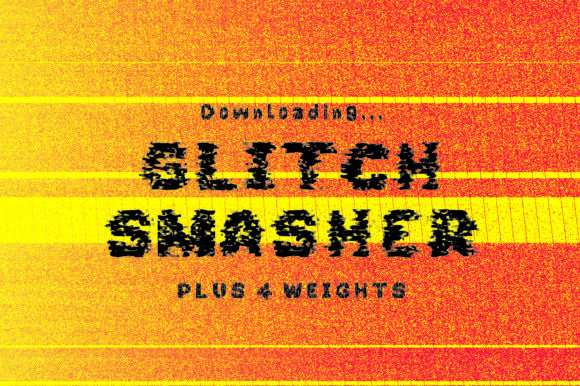
The Perfect Font for Your Next Digital Project
Have you ever stared at a blank canvas, trying to come up with the perfect font to match your futuristic design? I know I have. It’s like trying to find the missing piece of a puzzle – until you stumble upon it, everything else just doesn’t feel right.
That’s where the Glitch Smasher Font comes in – a bold, eye-catching typeface that screams ‘digital’ and is sure to elevate any project that needs a technological twist. With its unique blend of modern and retro elements, this font is perfect for designers looking to add a touch of futurism to their work.
Whether you’re creating a sci-fi movie poster, a tech startup logo, or a futuristic website, the Glitch Smasher Font is a valuable addition to any designer’s toolkit. Its bold, glitchy aesthetic is sure to grab attention and leave a lasting impression on your audience.
Key Features of Glitch Smasher Font
- Unique Characteristics: The Glitch Smasher Font features a distressed, glitch art aesthetic with bold lines and pixelated textures, perfect for futuristic and tech-inspired designs.
- Character Set: Includes a wide range of characters, including Latin, Cyrillic, and Greek alphabets, as well as punctuation and special characters.
- Style Options: Available in 3 styles: Regular, Bold, and Outline, offering flexibility for various design applications.
Glitch Smasher Font Review
Overall, I think Glitch Smasher is a solid choice for designers looking for a unique font with a digital edge. ✨ Here are some of the things that work well:
- Uniqueness: Glitch Smasher stands out from more traditional fonts with its bold, distorted aesthetic.
- Customizability: The font comes with a range of styles and sizes, allowing designers to tailor it to their specific needs.
- Legibility: Despite its glitchy appearance, Glitch Smasher is surprisingly easy to read.
That being said, there are some limitations to consider: ⚠️
- Overuse: The font’s bold, distorted aesthetic may become overwhelming if used too extensively.
- Limited versatility: While Glitch Smasher is perfect for digital or futuristic designs, it may not be the best choice for more traditional or formal projects.
Overall, I’d give Glitch Smasher 4 out of 5 stars. It’s a great addition to any designer’s toolkit, but it’s not a one-size-fits-all solution. With careful use and consideration of its limitations, Glitch Smasher can add a unique touch to even the most complex designs.
Getting the Most Out of the Glitch Smasher Font
To get the most out of the Glitch Smasher Font, use it sparingly and in creative ways, such as:
- Creating a bold headline or title.
- Adding a touch of edginess to a design.
- Using it to create a futuristic or high-tech look.
The Glitch Smasher Font is commonly used in:
- Technology and gaming designs.
- Future or sci-fi themed designs. Alternatives to Glitch Smasher Font for Designers
1. Pixelated
Pixelated is a font that mimics the aesthetic of old video games and pixel art. It’s ideal for designers who want to create a retro or nostalgic feel in their designs. Pixelated is similar to Glitch Smasher Font in that it also has a pixelated look, but it’s more subtle and can be used in a wider range of designs.
2. Bangers
Bangers is a bold, graffiti-inspired font that’s perfect for designers who want to add some edge to their designs. It’s similar to Glitch Smasher Font in its bold and eye-catching style, but it’s more suitable for designs that require a strong, urban feel.
3. Space Mono
Space Mono is a monospaced font that’s designed to look like it was printed on a computer terminal. It’s ideal for designers who want to create a futuristic or sci-fi feel in their designs. Space Mono is different from Glitch Smasher Font in that it’s more minimalist and sleek, but it can be used in similar designs that require a technical or futuristic feel.